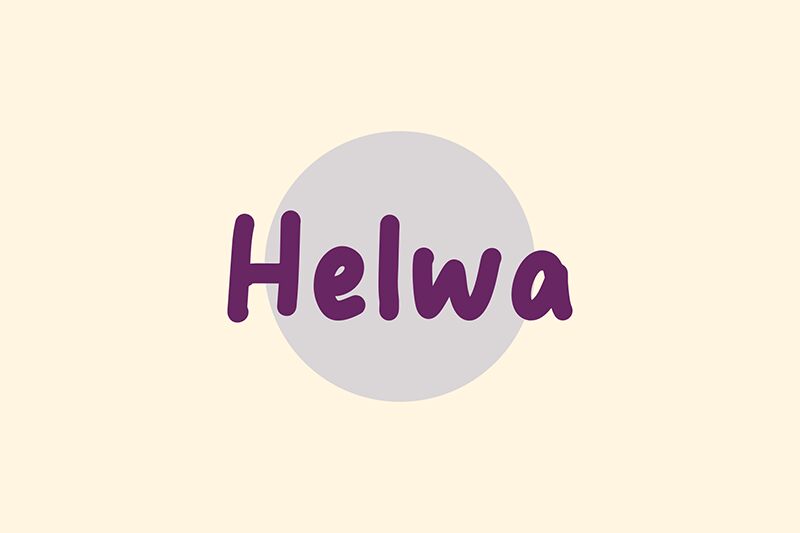
Helwa
Helwa font designed by Zuzulgo Studio is a casual style handwritten font with an inviting tone and smooth flow. It carries a modern aesthetic look that stands out with its simple and clean features, combining the intimate nature of handwriting with the digital environment. A display of natural imperfections and unique patterns adds to its signature feel.
The font’s artistic touch is great for branding projects, logos, packaging designs, label designs, posters or movie posters. Use it in invitation cards to impress guests or in greeting cards for authentic wishes straight from your heart. Quotes can also be typed in Helwa alongside website headlines and social media posts.